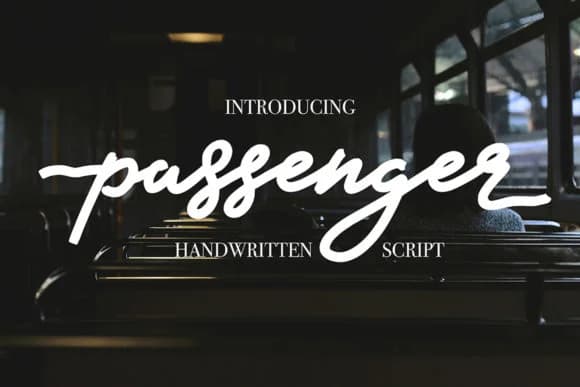
Passenger, designed by Masha Artifex, features confident, flowing letterforms with a relaxed handwritten quality that reads as intentional and modern rather than hastily scrawled. Bold character weights give each letter real presence without sacrificing the organic feel of pen-on-paper work. This script doesn't apologize for being genuinely handmade.
Passenger works beautifully for wedding invitation suites where personal warmth matters more than formality and geometry. Etsy shop owners frequently reach for it when designing product labels and branding materials that need genuine presence among mass-produced competitors. Hand-lettered poster designs benefit enormously from its balance between readability and character. Artisanal packaging projects, from skincare labels to premium tea boxes to handcrafted jewelry inserts, gain authentic warmth when rendered in this font. DIY craft signage and home decor projects come alive with Passenger's friendly confidence and visible personality.
Passenger is built for designers and small business owners creating visual identity materials that feel genuinely handmade rather than corporate or templated. The script delivers exactly what modern audiences now expect from brands that prize authenticity and intentional detail. Find it on Creative Fabrica to add a typeface to your collection that works as hard as the people using it.
Passenger Font is a script font that shines as a display or heading face. Pair it with a clean sans-serif or serif font for body text β the contrast creates a clear hierarchy while the two styles stay balanced and easy to read.
Passenger Font